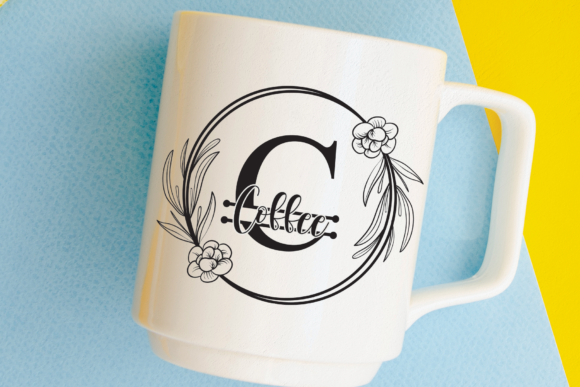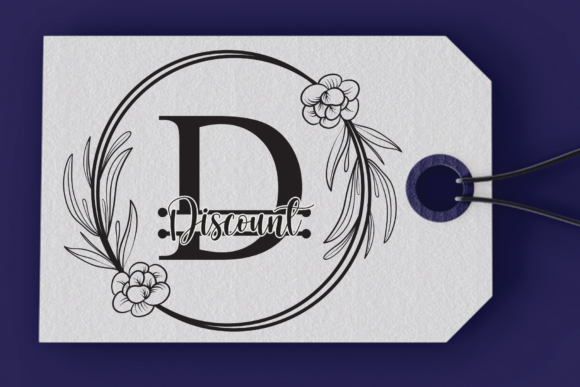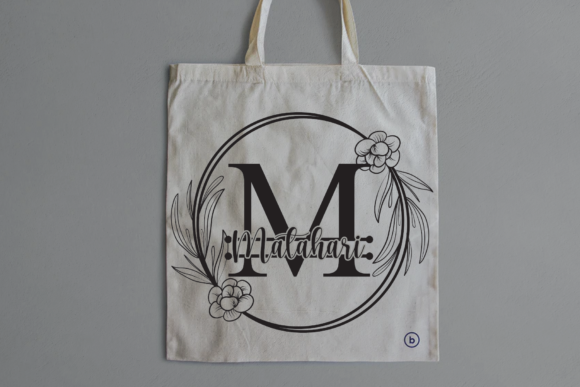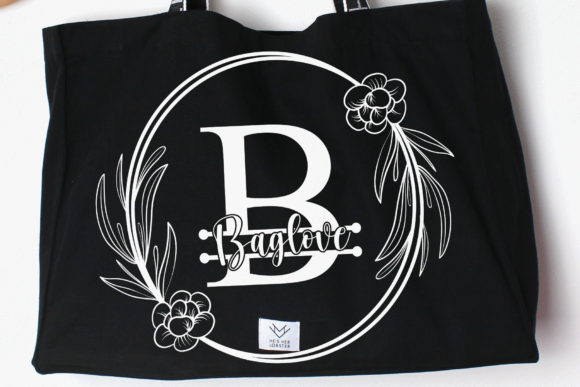
Introduction to Rewarding Font
Rewarding is a ravishing decorative font.
Add this beautiful looking font to each of your love letters, wedding invitations or favorite design ideas, and you will be astounded by the outcome .
Rewarding Font offers exceptional quality and versatility, making it a valuable addition to your design toolkit. Whether you’re creating for personal projects or commercial use, Rewarding Font delivers professional results.